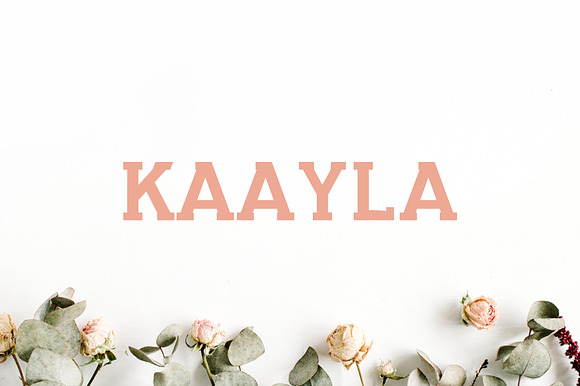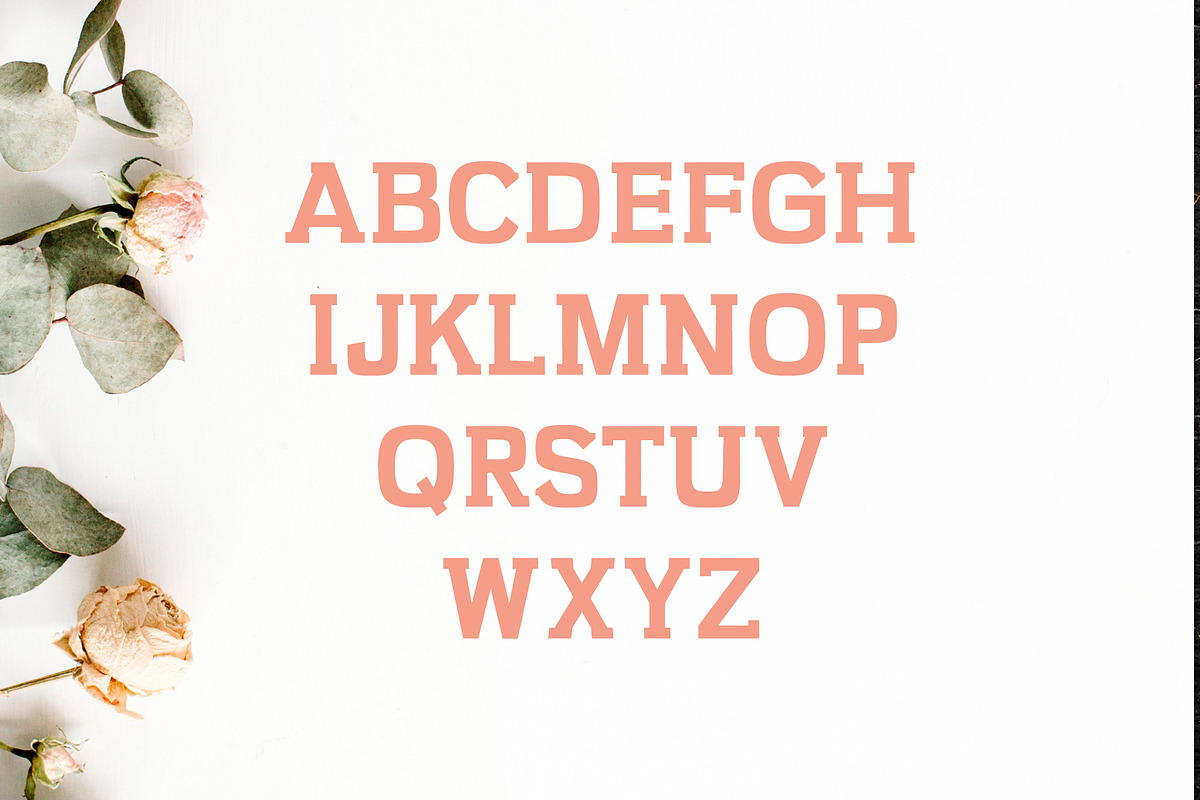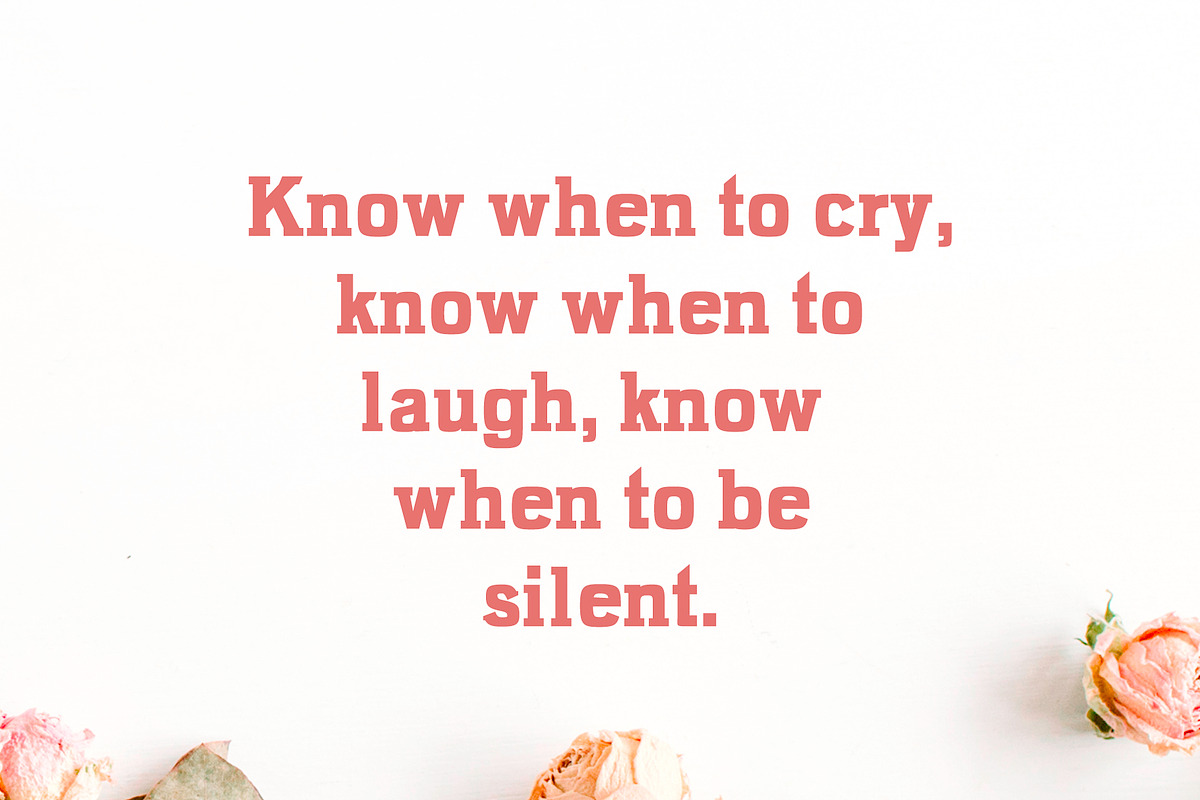
Kaayla Slab Serif Font Pack
Kaayla Slab Serif Typeface is an awesome bold slab serif typeface. Kaayla comes in four weights, with over 290 glyphs support. It's a lovely and unique slab serif font in our store, allowing you to make each word look completely stylish! Excellent to use in logotypes, signage, advertising, display, typography, headlines, captions, logo design, branding and just about everything in between.
Regular, Outline, Extra-Bold and Black Weights
Kaayla Font Features: